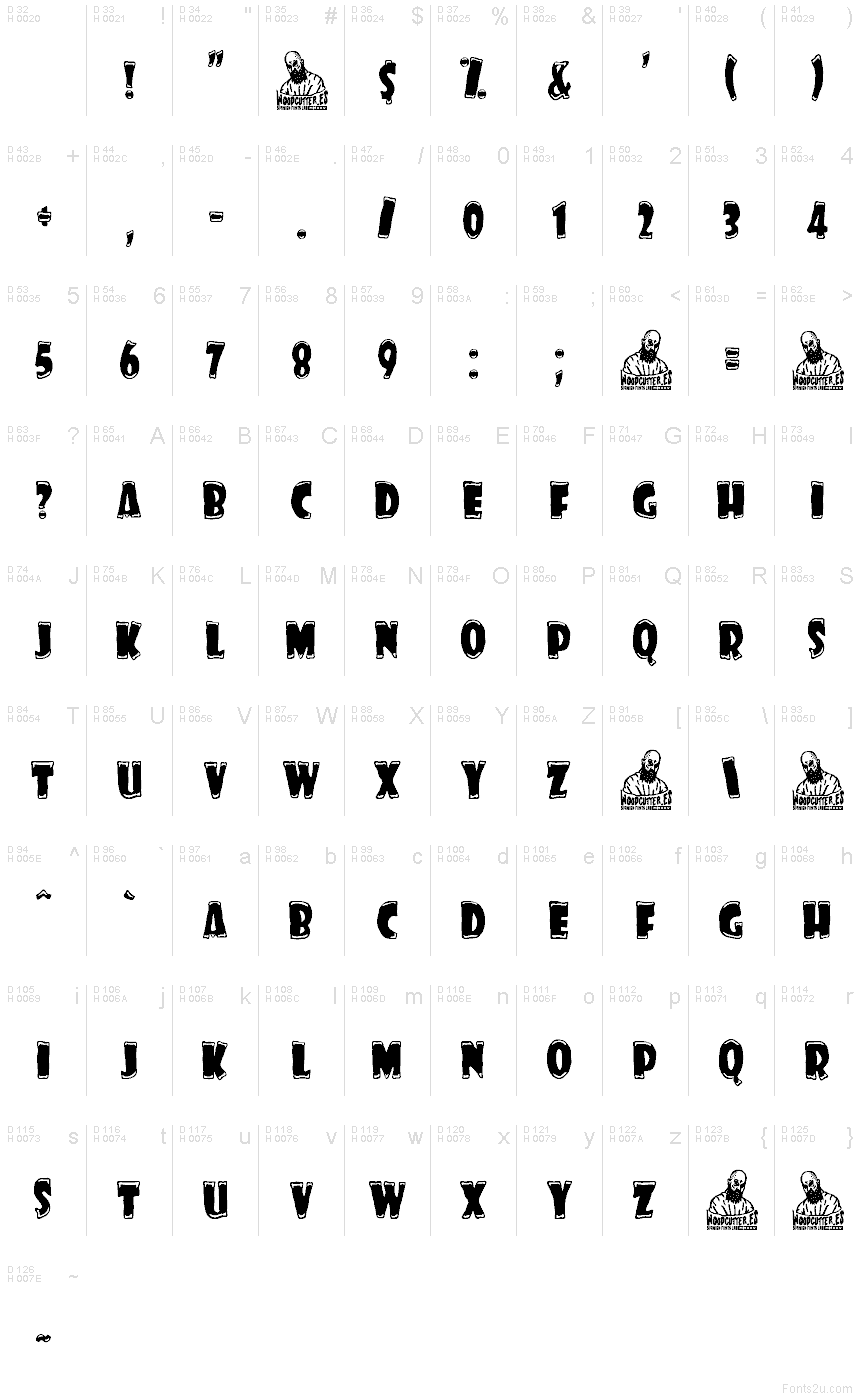
The Cartoon Hotel font by Woodcutter is a free cartoon display typeface with the energy of a spooky theme park marquee. Thick, inky letters wobble and bulge, with little interior highlights that feel like reflections on wet paint, giving every word a playful yet slightly eerie mood. It’s bold, messy in all the right ways, and grabs attention from across the room without losing legibility.
Using The Cartoon Hotel font, you can instantly brand kids’ book covers, comic-style logos, party invitations, YouTube thumbnails, game titles, and Halloween posters with a consistent cartoon horror vibe. This free font shines when you set it large and keep copy short, letting those chunky forms do the talking. For balance, pair it with a clean, simple sans serif in smaller text so the wild headlines have room to breathe.